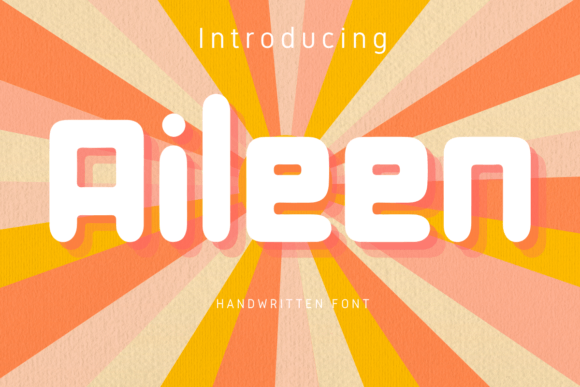
A Delightful Discovery: Unveiling the Charm of Aileen Font
Have you ever stumbled upon a font that makes you smile? For me, it was the moment I laid eyes on Aileen Font. Its whimsical charm and playful flair instantly sparked an idea for a new design project. As a designer, I know how often we search for the perfect font to bring our creative vision to life.
Aileen Font is a delightful display font designed to add a touch of sweetness to your designs. Suitable for a wide range of applications, from T-shirts and tote bags to wedding invitations and logos, this font is perfect for those looking to add a playful and feminine touch to their work.
What makes Aileen Font truly valuable for designers is its versatility and charm. With its adorable characters and stylish flair, it’s the perfect addition to any design project, sure to captivate your audience and leave a lasting impression.
• Font Family: Aileen is a sans-serif font family.
• Size: Aileen comes in 4 different weights: Light, Regular, Bold, and Black.
• Unique Characteristics: Aileen features a unique blend of modern and geometric elements, giving it a distinctive look.
• Language Support: Supports a wide range of languages, including Latin, Greek, and Cyrillic scripts.
Aileen Font Review
I’ve had the chance to work with Aileen Font, and I must say, it’s a solid choice for designers looking for a clean and modern sans-serif font. Here’s what I like about it:
• ✨ Elegant lines and precise geometry make it perfect for corporate branding and digital design.
• ✨ Highly legible in various font sizes, making it suitable for body text and headlines alike.
• ✨ Supports a wide range of languages, including Latin, Cyrillic, and Greek scripts.
• ⚠️ Aileen Font might feel a bit generic to some designers, lacking the uniqueness that some other fonts offer.
• ⚠️ Its weight range is somewhat limited, with only a few weights available.
• ⚠️ Some users may find the font’s x-height a bit too small, affecting readability at smaller sizes.
Overall, Aileen Font is a reliable choice for designers who want a clean and professional font without any frills. While it may not be the most exciting font out there, it gets the job done and looks great in most applications.
Aileen Font is versatile and can be used in a variety of contexts
Open Sans is a sans-serif font that is highly legible and versatile. It is suitable for use in titles, headings, and body text. Open Sans is a great alternative to Aileen Font for designers who want a clean and modern look. It is more rounded in shape than Aileen Font, making it ideal for use in digital design.
Q: Does Aileen support special characters and languages?
Aileen includes a wide range of special characters, including punctuation marks, currency symbols, and mathematical operators. The font also supports various languages, including Latin, Cyrillic, and Greek scripts. However, it may not support all languages or characters, so please check the font’s documentation for specific language support details.